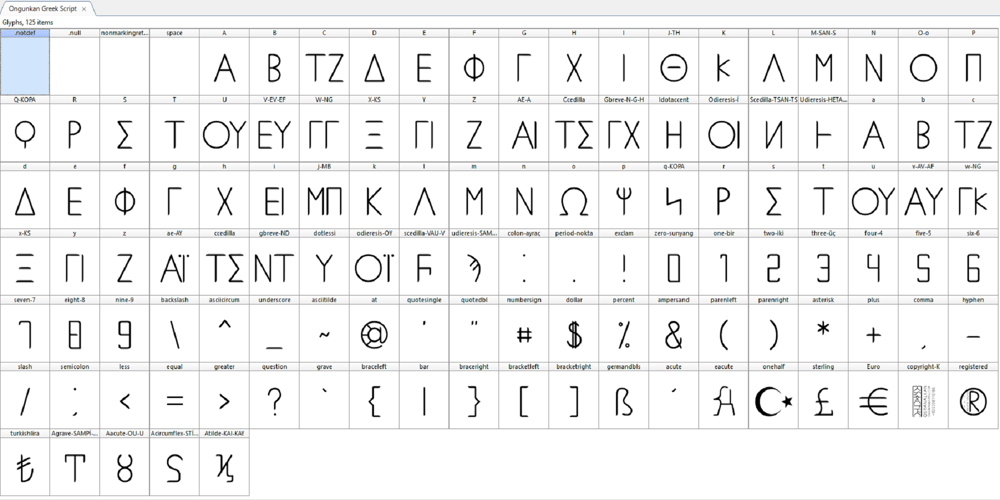
Ongunkan Greek Script Font Family was designed by Osman Nuri ALKAN and published by Runic World Tamgacı. Ongunkan Greek Script contains 1 styles and family package options. This beautiful writing, which belongs to the Greek culture, is in a good place among the world writing cultures. I wouldn’t have done it if I didn’t make the font in this article. Dozens of beautiful fonts all have the same elegant lines.